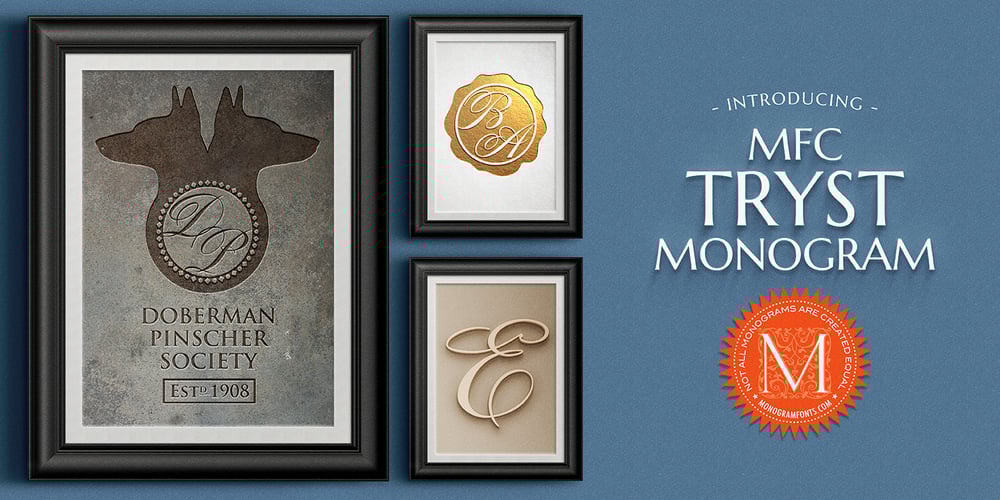
MFC Tryst Monogram Font Family was designed by Brian J. Bonislawsky and published by Monogram Fonts Co.. MFC Tryst Monogram contains 4 styles and family package options. The inspiration source for Tryst Monogram is a showcard script (capitals only) from the 1912 A Show at Showcards book by Atkinson & Atkinson. What began as 26 referenced script letters became an over 800 character font in order to create its unique cameo effect! Tryst Monogram can create one, two, or three letter monograms as well as a unique two letter cameo monogram style – made by simply typing two lowercase letters in a row (using OpenType Ligatures). Add framing to a cameo monogram by adding a number 0-9 before the two letters. It’s that easy! Download and view the Tryst Monogram Guidebook if you would like to learn a little more.